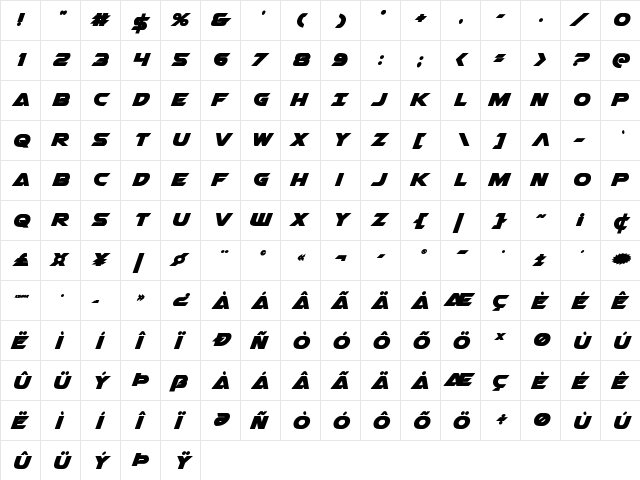
Airstrike Bold Bold
Design Context for Airstrike Bold Typeface
Airstrike Bold is a composed and adaptable typeface that performs quietly and consistently across a wide range of design contexts. Its bold stroke weight gives it real presence on the page.
Pro Tip: Pair Airstrike Bold with a font of contrasting weight or personality to build a more expressive typographic hierarchy.